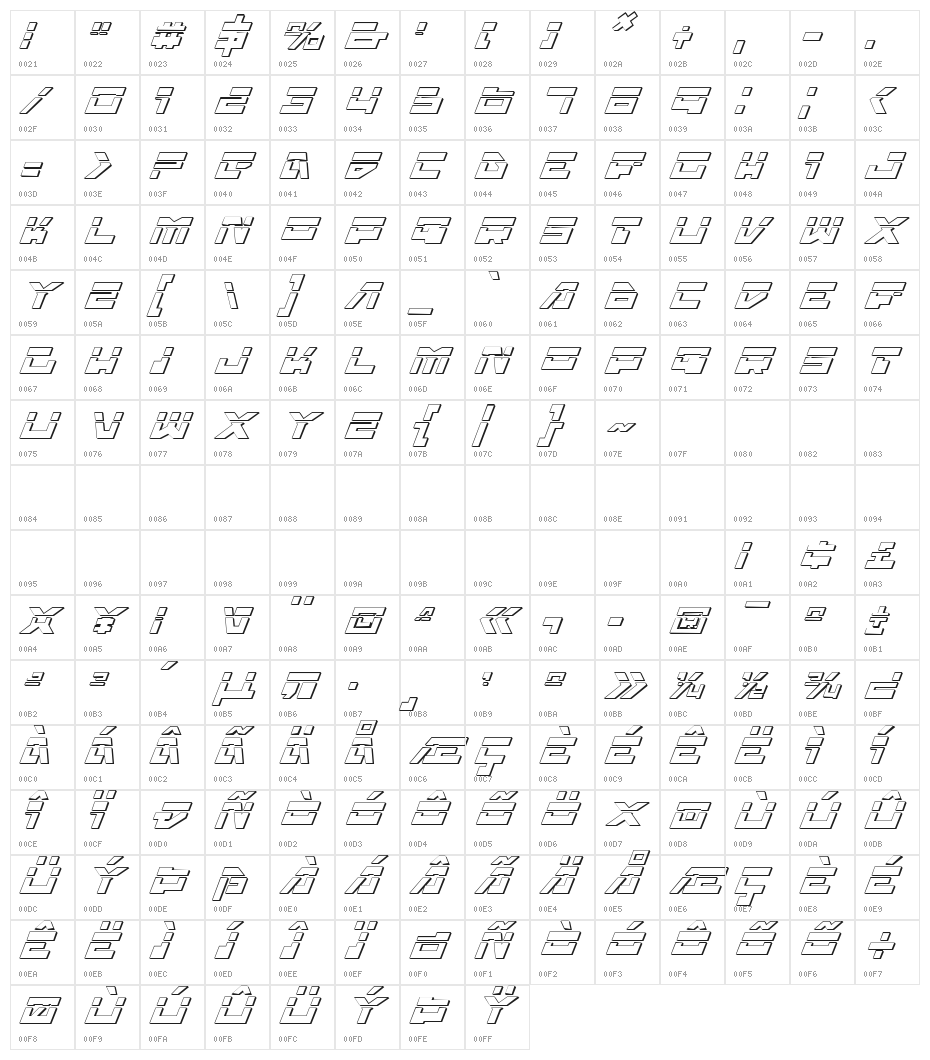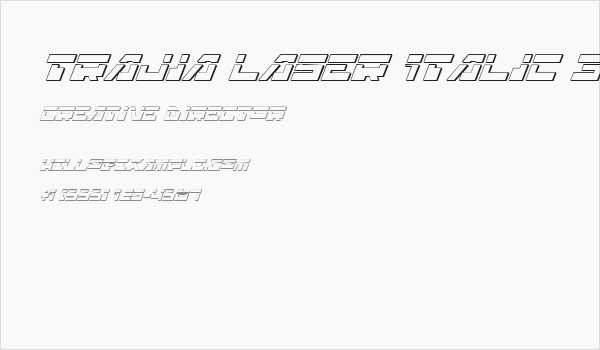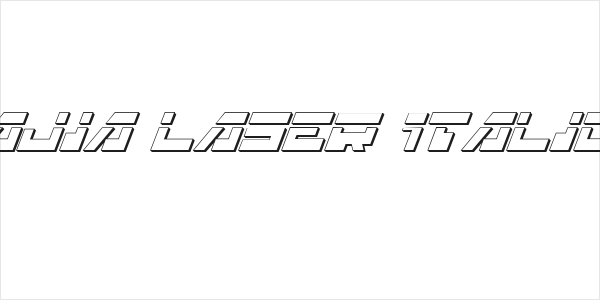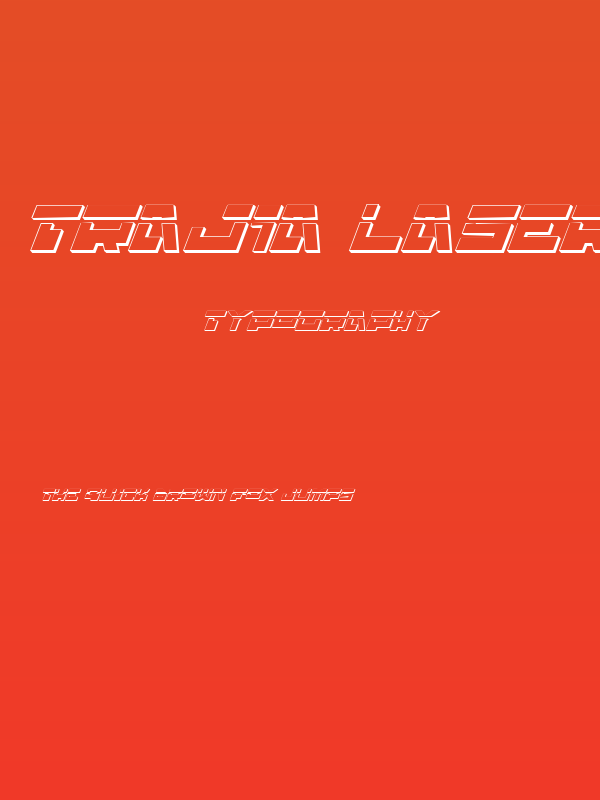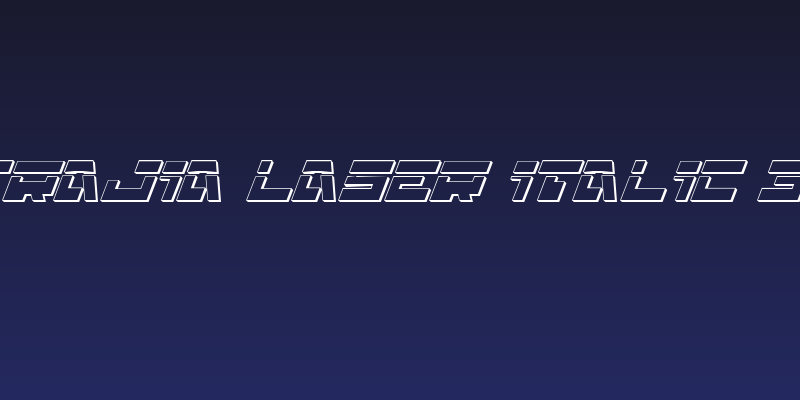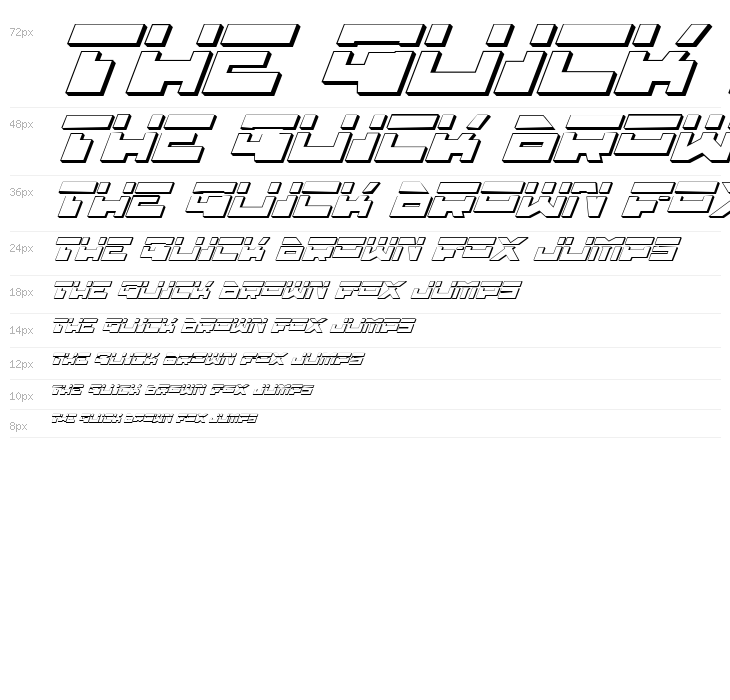
Trajia Laser Italic 3D Font
Trajia Laser Italic 3D Description
This font features a futuristic and angular design, characterized by its bold, geometric shapes and 3D effect. The letters are constructed with sharp edges and a distinct italic slant, giving them a dynamic and forward-moving appearance. The outline style adds depth and dimension, making it stand out as a display typeface. Each character is uniquely crafted with a consistent width, maintaining uniformity across the alphabet. The numbers and special characters follow the same design principles, ensuring a cohesive look. This font is ideal for projects that require a modern and tech-inspired aesthetic.
| Proposed Projects | Ideal for sci-fi themed posters, video game graphics, tech branding, and futuristic event invitations. |